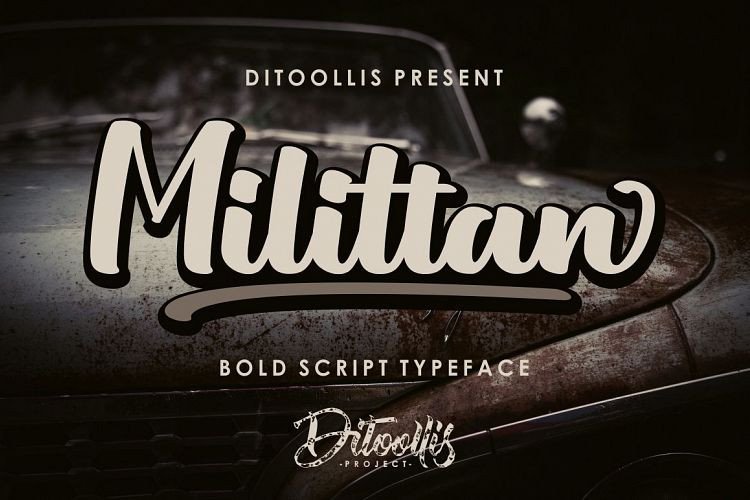
Milittan Font
I have released my latest font.
Introducing “Milittan”
This font, an elegant, modern and cool font
font that is very suitable to use for your design.